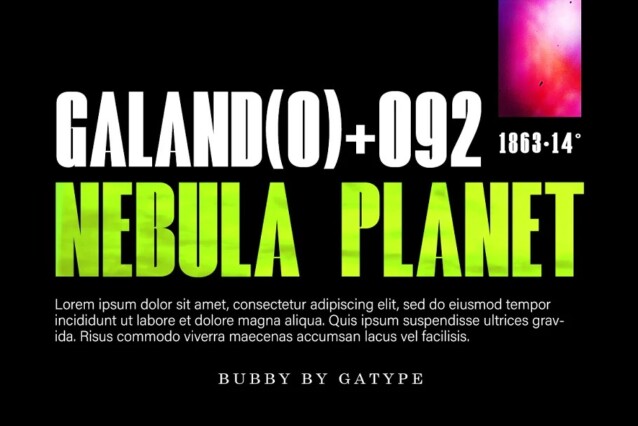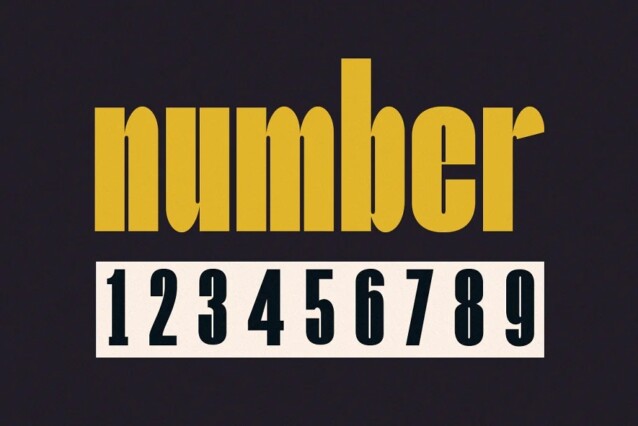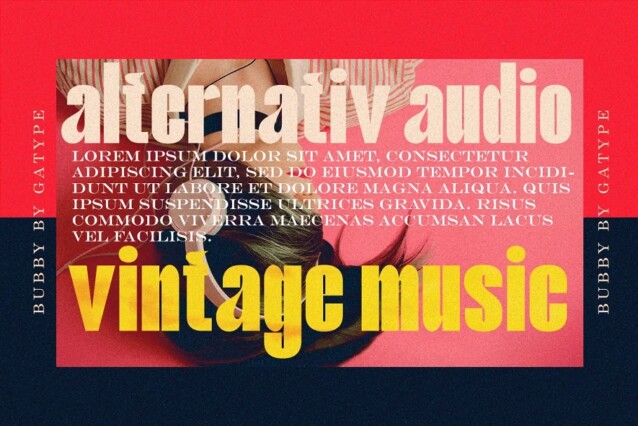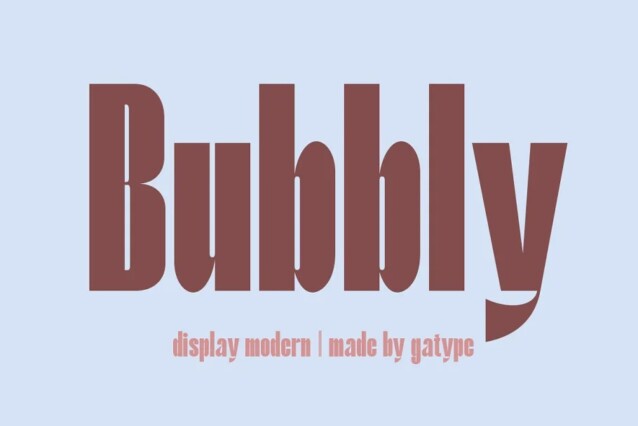
Bubbly Font is a display font from Gatype that seamlessly blends clean and modern elements. This font stands out with its condensed design, creating a powerful and efficient visual impression. Perfect for branding projects, logos, wedding designs, social media posts, advertising, product packaging, product design, labels, photography, watermarks, invitations, stationery and any project.